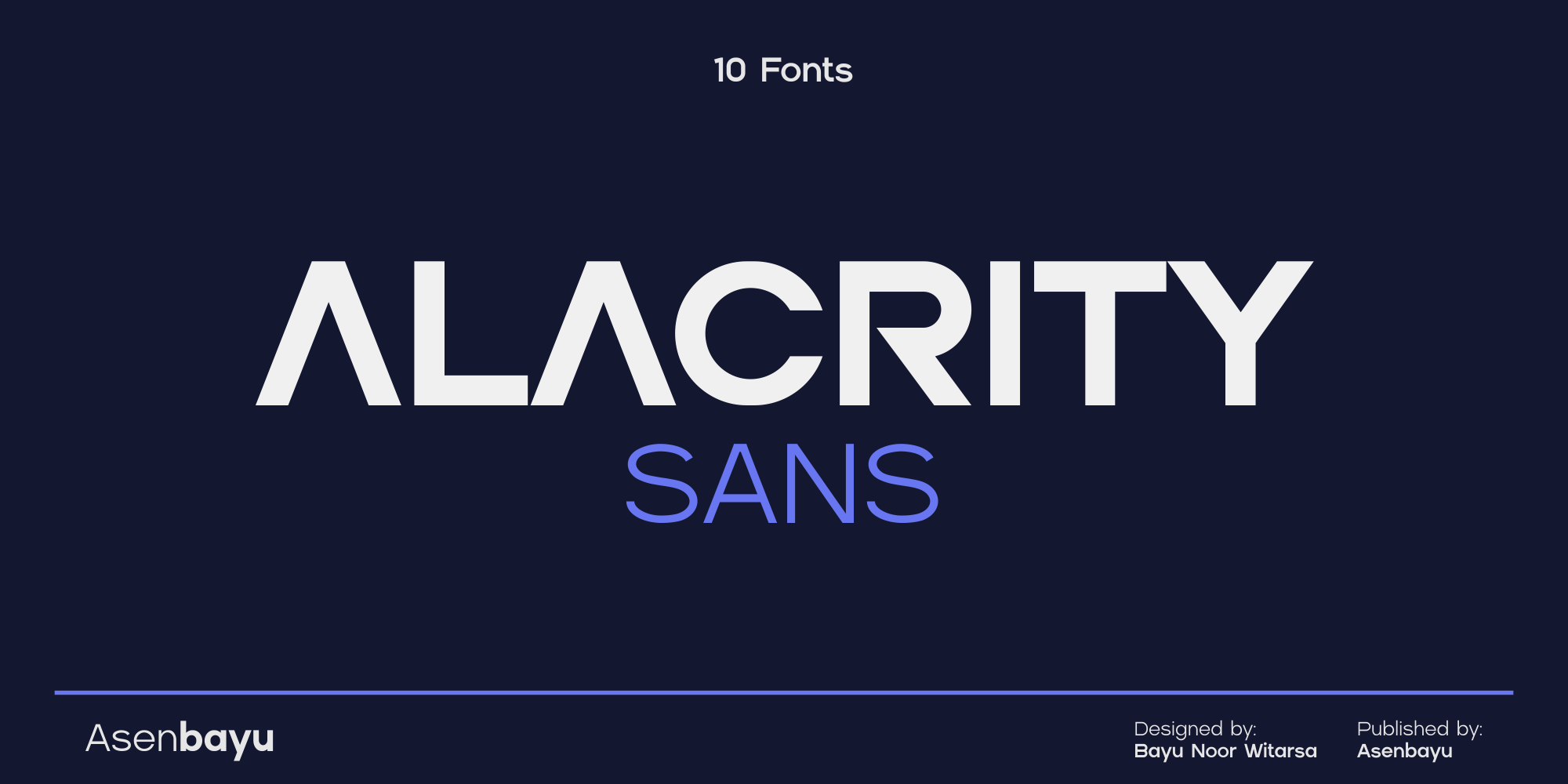
Alacrity Sans Font is perfect for dynamic tech startups, fast-paced business communications, agile software interfaces, quick-service restaurants, efficient logistics companies, rapid response services, energetic fitness brands, speed-focused marketing campaigns, and any project requiring typography with swift efficiency and energetic professional momentum.
What makes Alacrity Sans Font exciting is its dynamic velocity that captures the essence of speed and efficient action with clean letterforms that convey immediate responsiveness and energetic professionalism without sacrificing clarity or readability. This innovative typeface embodies the spirit of rapid innovation with streamlined geometry that reflects the fast-moving pace of modern business and technology while maintaining the reliability required for professional communication. The font's energetic character and efficient sophistication make it perfect for brands that prioritize speed, agility, and the seamless delivery of exceptional results.
The Alacrity Sans Font family includes multiple weights from light to black, featuring complete uppercase and lowercase alphabets, numerals, punctuation marks, and dynamic design elements. The font maintains consistent energetic flow throughout all weights while ensuring optimal performance for both fast-paced headlines and efficient text applications in business and technology contexts.
Whether you're designing for agile software companies, creating rapid-response service branding, or developing high-energy marketing materials with speed-focused aesthetics, Alacrity Sans Font Free Download delivers unmatched energetic efficiency and dynamic sophistication to your projects. This exceptional typeface transforms ordinary text into powerful expressions of velocity and capability that communicate speed, reliability, and the unstoppable momentum of successful organizations. The font's dynamic character makes it ideal for tech companies, logistics firms, and performance-driven brands. Download this remarkable font today and bring the energetic power of swift efficiency to your design projects with authentic dynamic sophistication and alacrity-driven excellence.